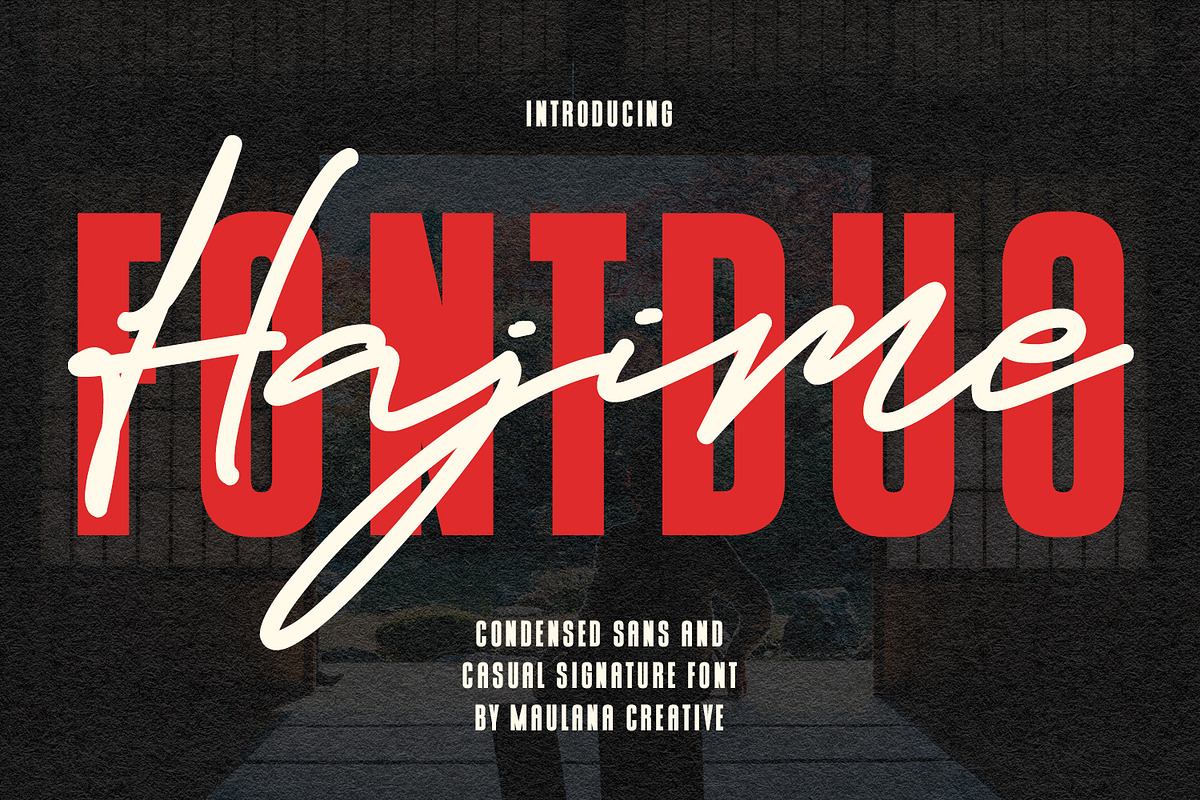
Hajime Script Font Duo Free Sans Download is a versatile and elegant font duo that combines the flowing charm of a script font with the clean, modern style of a sans-serif font. Perfect for a wide range of creative projects, this duo is ideal for logos, branding, invitations, social media content, and more. The script font adds a personal, artistic touch, while the sans-serif font provides clarity and structure, making it perfect for balancing elegance and readability. Whether you're working on a luxury brand, a personal project, or a stylish event invitation, Hajime Script Font Duo Free Sans Download lets you experiment with both fonts in personal projects before purchasing a commercial license. Add sophistication and versatility to your designs with this beautifully crafted font duo.